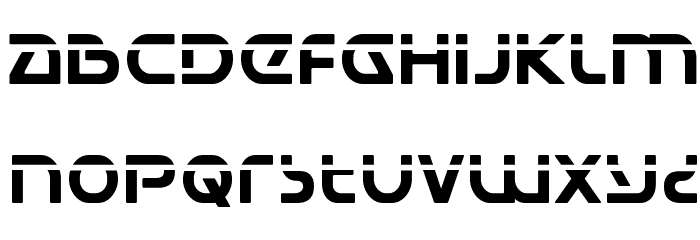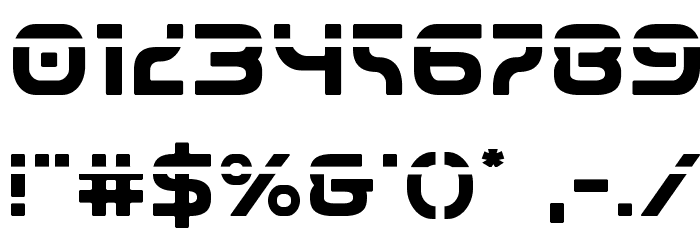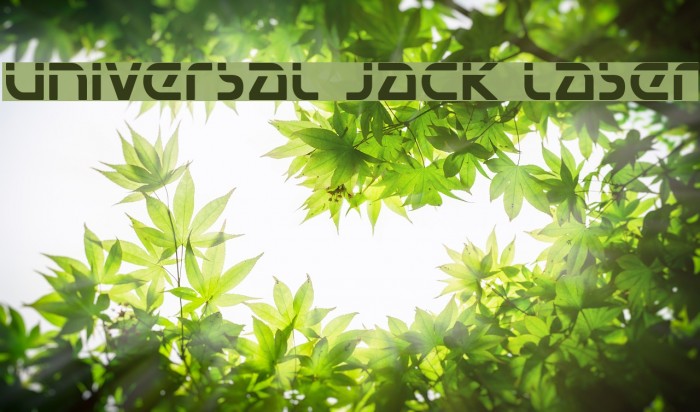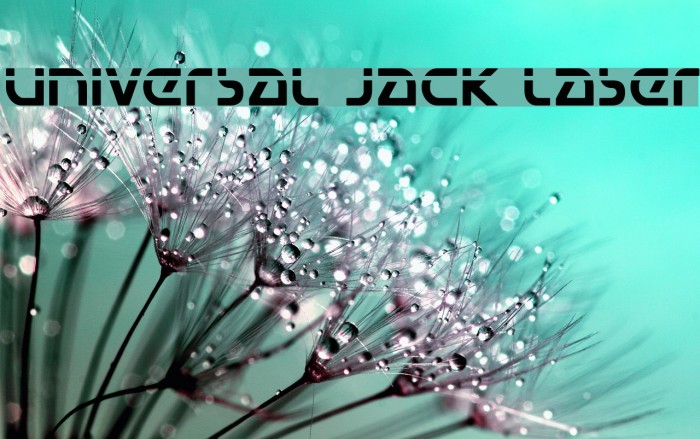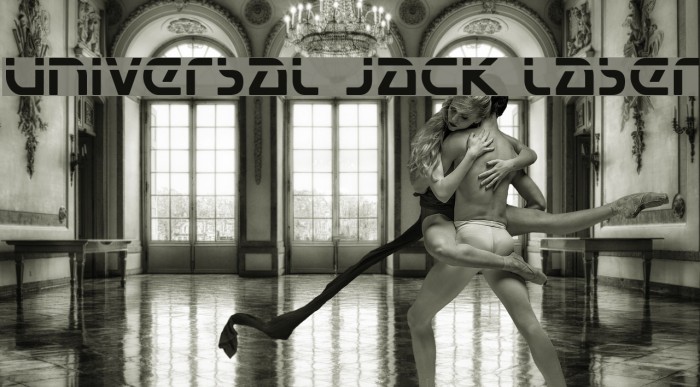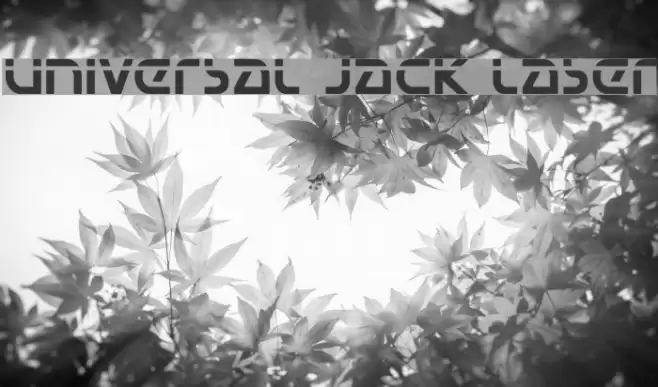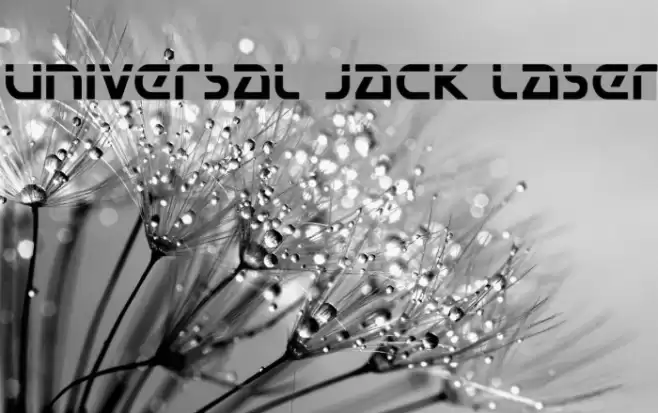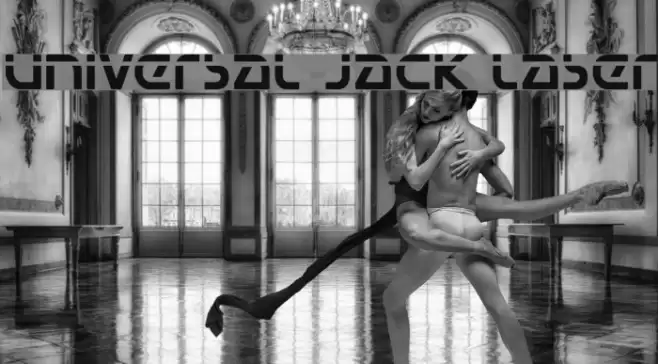
Universal Jack Laser Font
This font features a futuristic and geometric design with a bold presence. The characters are constructed with a combination of straight lines and curves, creating a sense of movement and modernity. The uppercase and lowercase letters maintain a consistent style, with unique cutouts and angles that give the font a distinctive look. The numerals and special characters follow the same design principles, ensuring a cohesive appearance across all glyphs. This font is ideal for projects that require a modern and tech-savvy aesthetic.
A futuristic, geometric font with bold, angular characters.
- Proposed Projects: Ideal for technology branding, sci-fi movie posters, video game titles, and modern advertising campaigns.